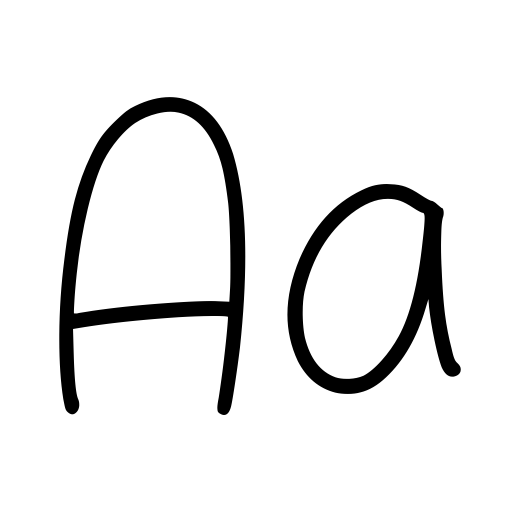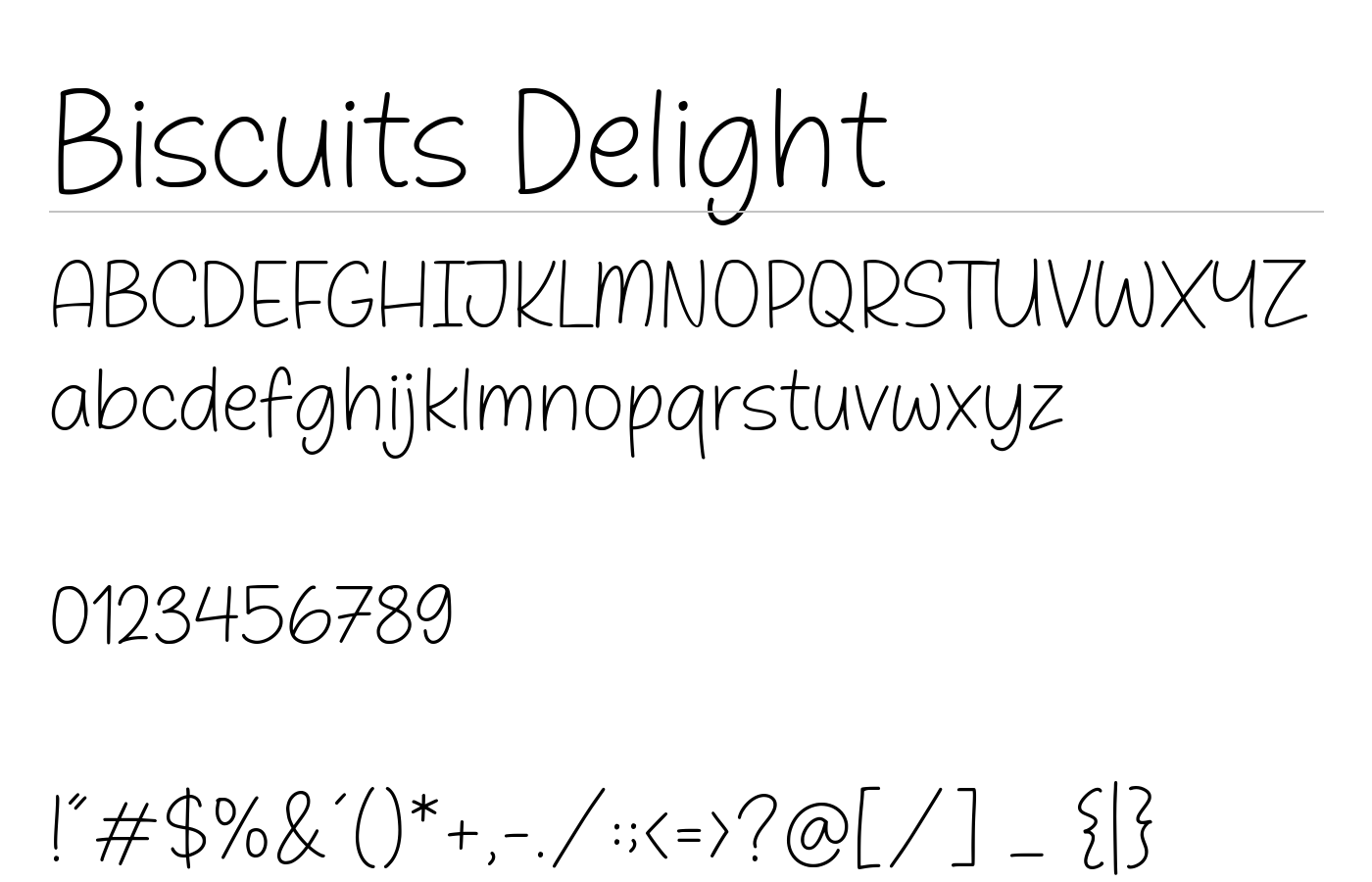
Biscuits Delight is a playful, casual handwritten sans serif font with a light weight and narrow width. It features simple, slightly irregular letterforms that give it a friendly, approachable feel, making it ideal for informal designs, children's materials, and creative projects. Its clean, airy style works well in logos, invitations, and websites where a warm, personal touch is desired.
Biscuits Delight Font
About Biscuits Delight Font